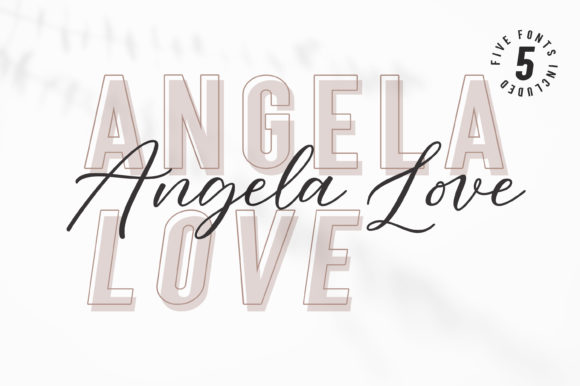
Welcome to the world of Angela Love Duo Font, a charismatic collection that speaks to your creative soul. This exceptional font family, meticulously crafted by the talented FarGun Studio, offers an exquisite blend of five fonts, harmoniously designed to dance together in perfect unity.
At the core of Angela Love lies a quartet of pristine sans serif fonts, each exuding elegance and clarity. Their clean lines and crisp edges form a solid foundation for your designs, ensuring readability and impact. Whether you seek a touch of sophistication or a burst of boldness, these sans serif fonts will deliver.
But Angela Love is more than just a collection of ordinary sans serif fonts. It's a symphony of styles that culminates in the captivating modern script font. This enchanting font, with its graceful curves and playful flourishes, adds a touch of magic to your creations. Its enchanting swashes and delicate ligatures weave a tale of romance and whimsy, making it the perfect choice for adding a personal touch to your designs.
Together, these five fonts form an irresistibly versatile collection that will ignite your creativity and transform your designs into masterpieces. Experiment with striking combinations, mix and match different styles, and let your imagination run wild. Whether you're designing logos, branding materials, social media graphics, or website elements, Angela Love is your ultimate typographic toolkit.
Embrace the beauty and versatility of Angela Love Duo Font today. Let your designs bloom with creativity, captivate your audience, and leave a lasting impression. Your journey to typographic excellence starts here.